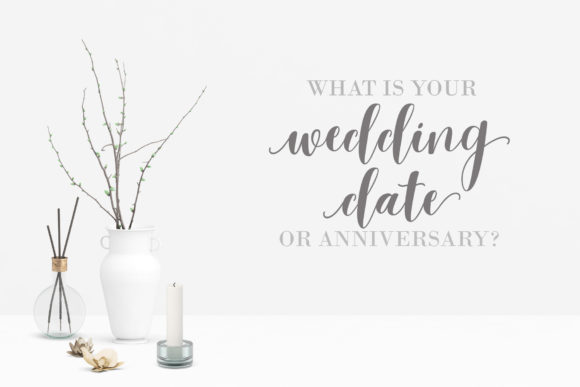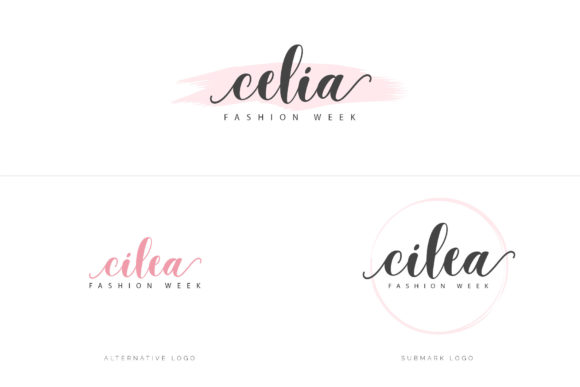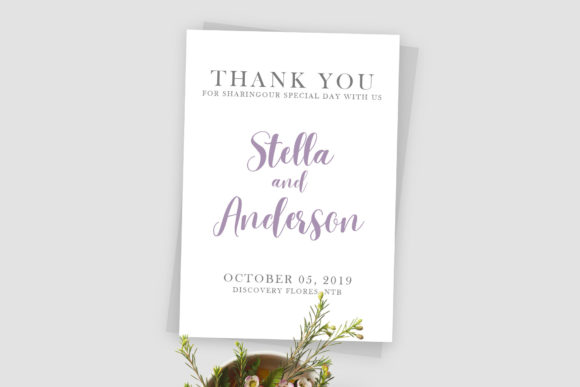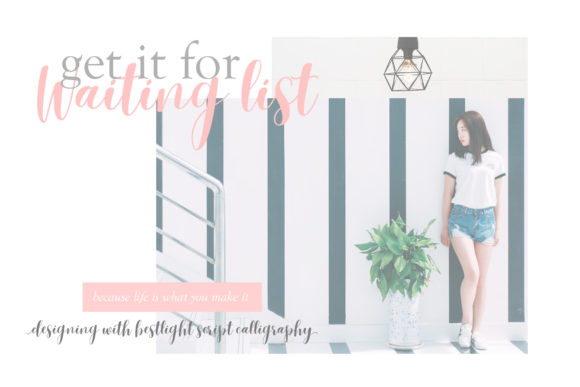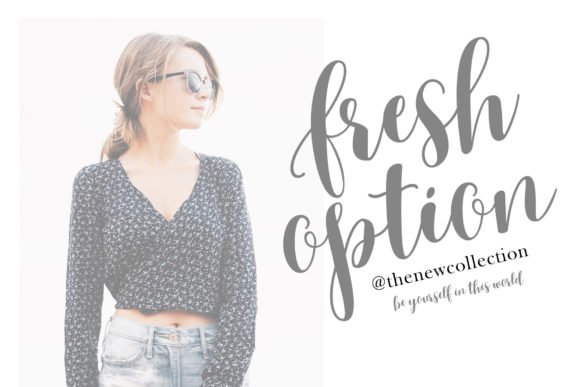
Discover the Elegance of Bestlight Font: Elevate Your Designs with a Personal Touch
In the world of typography, the right font can make all the difference in transforming a design from ordinary to extraordinary. For those seeking a touch of elegance and a dash of personality, the Bestlight Font stands out as a remarkable choice. This stunning handwritten font, crafted with precision and a keen eye for style, is perfect for a variety of creative projects. Whether you’re planning a wedding, celebrating a graduation, or simply looking to add a personal touch to your designs, Bestlight is the ideal companion.
The Characteristics of Bestlight Font
Bestlight Font is distinguished by its trendy, natural, and gentle appearance. It is made with a sharp hand, reflecting a lovely sense of style that can instantly elevate your projects. The font’s unique characteristics make it versatile and suitable for various applications, including:
- Party celebrations: Create eye-catching invitations and decorations that set the tone for your event.
- Wedding invitations: Add a touch of romance and sophistication to your wedding stationery.
- Graduation designs: Commemorate this significant milestone with elegant and memorable designs.
- Meeting materials: Impress your audience with professional and stylish presentations.
What Makes Bestlight Font Special?
One of the standout features of Bestlight Font is its PUA (Private Use Area) encoding. This means that accessing all the glyphs and swashes is straightforward, giving you the flexibility to experiment and customize your designs to your heart’s content. The inclusion of swashes and glyphs allows for a high level of creativity, enabling you to add flourishes that make your work truly unique.
Advantages for Designers and Crafters
For designers and crafters, Bestlight Font offers several advantages:
- Ease of Use: The PUA encoding ensures that you can easily access and use the font’s features without needing complex software or technical knowledge.
- Versatility: Bestlight’s style is adaptable to various projects, from digital designs to print materials.
- Time-Saving: With a wide range of glyphs and swashes at your disposal, you can create intricate designs more quickly and efficiently.
- Unique Designs: The font’s distinctive look helps your projects stand out, ensuring they capture the attention of your audience.
Tips for Using Bestlight Font
To make the most of Bestlight Font, consider the following tips:
- Mix and Match: Don’t be afraid to combine Bestlight with other fonts to create a layered look or to highlight specific elements of your design.
- Experiment with Sizes: Playing with font sizes can add depth and interest to your designs.
- Utilize Swashes: Swashes can add a decorative touch to your text. Use them to begin sentences, emphasize certain words, or simply for aesthetic appeal.
Bestlight Font is more than just a typeface; it’s a tool for creativity and self-expression. Its elegant, handwritten style, combined with its practical features like PUA encoding, makes it an invaluable asset for designers and crafters. Whether you’re creating something for a personal occasion or a professional project, Bestlight Font can help you achieve a look that’s both stylish and memorable. So, why settle for ordinary when you can make your designs extraordinary with Bestlight Font?
Embark on your creative journey with Bestlight Font today and discover the difference a beautiful, handwritten typeface can make in your work.